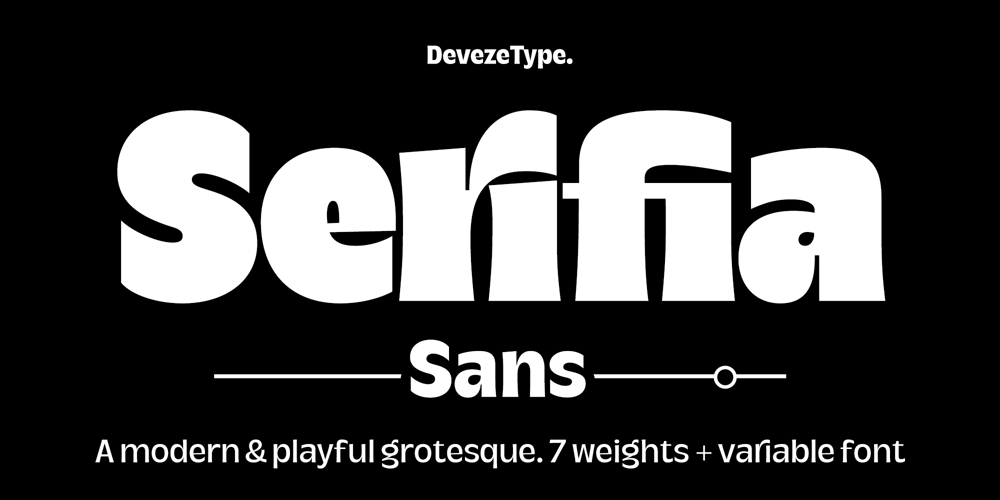
DT Serifia
DT Serifia font
DT Serifia Font Family was designed by Maya De La Deveze and published by Deveze Type. DT Serifia contains 8 styles and family package options. DT Serifia Sans is a modern grotesque with a playful character. The font family contains seven widths and one Variable Font. From extra thin to ultra bold, you will surely appreciate this font. Typography will take on its own mood with it. The vertical terminals give it a sense of sophistication even with all its playfulness. A wide range of weights allows using this typeface in a variety of projects, and a plethora of OpenType features will make your project look outstanding. A wonderful addition to your collection, it is perfect for branding, magazines, web, broadcasting, packaging, apparel prints, prints etc.